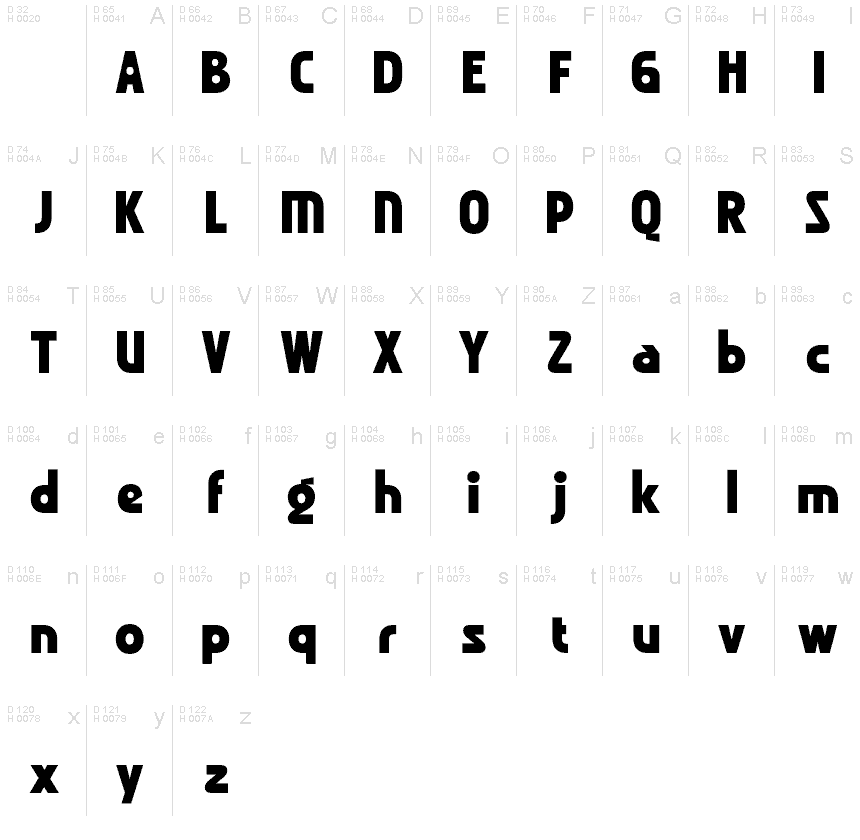
CS Bugle Regular Demo
CS Bugle font is an elegant sans display typeface from Craft Supply Co. The sleek, modern font style was crafted primarily on geometric elements for that futuristic feel. Each letter of this sans serif font has a unique aesthetic touch making it great at attracting attention and keeping it.
Design impactful logo designs, movie posters, printed ads, book covers, headers for web design projects, t-shirt designs, product packages and labels. With so much potential to go around free of charge like other fonts by the author who is popular for sharing classics with no strings attached!